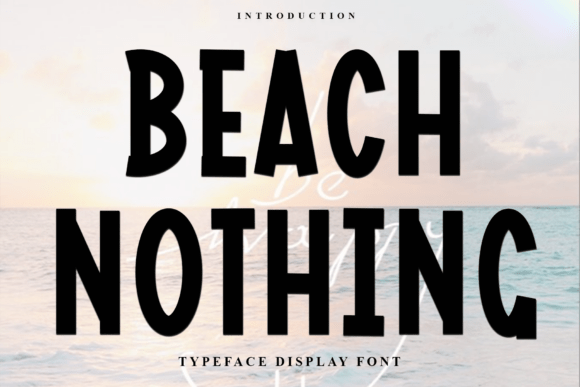
Discovering the Perfect Beach Getaway in Font Form
Imagine strolling along the beach, feeling the warm sand between your toes and the soothing sound of the waves in the background. As you gaze out at the horizon, you stumble upon a quirky little shop filled with unique trinkets and treasures. Amidst the clutter, one item catches your eye – a beautiful, handwritten font that seems to capture the essence of your beachy escape.
This is where the Beach Nothing Font comes in – a stunning and versatile font designed to bring a touch of whimsy and charm to your creative projects. With its soft, distinctive strokes, this font is perfect for designers looking to add a personal touch to their work. Whether you’re working on a design project, crafting a handmade gift, or simply experimenting with new ideas, the Beach Nothing Font is a valuable addition to your toolkit.
Beach Nothing Font Key Features
- Font Family: Beach Nothing is a sans-serif font family designed for digital use.
- Unique Characteristics: Features a modern, clean design with subtle rounded edges and a friendly feel, making it suitable for various digital applications.
Beach Nothing Font Review
I’ve had the chance to work with Beach Nothing Font on a few projects, and I must say it’s a mixed bag. Let’s dive in.
- Casual, relaxed vibe: The font is perfect for projects that require a laid-back, summery feel.
- Playful personality: Beach Nothing Font has a quirky, endearing quality that’s hard to resist.
- Flexibility: It’s suitable for both digital and print projects, which is a bonus.
- Legibility issues: In certain font sizes and styles, the text can become difficult to read.
- Lack of cohesion: The font’s various weights and styles don’t always feel cohesive, which can be jarring.
Overall, Beach Nothing Font is a fun, summery font that’s perfect for specific projects. However, its limitations might make it less suitable for more formal or complex designs. I’d recommend using it for projects that require a relaxed, casual tone.
Tips for Getting the Most Out of the Beach Nothing Font
The Beach Nothing Font is perfect for creating a relaxed, beach-inspired vibe. To get the most out of it, try using it for:
- Summer-themed designs and projects.
- Beach-themed party invitations and decorations.
- Relaxed, casual text for social media posts and blogs.